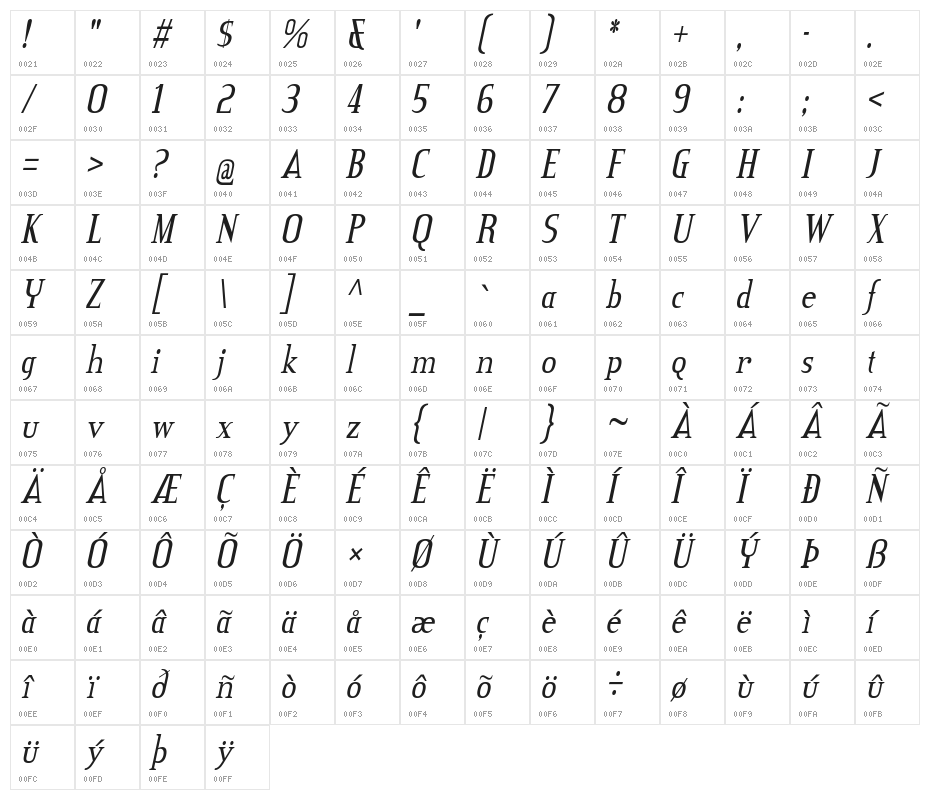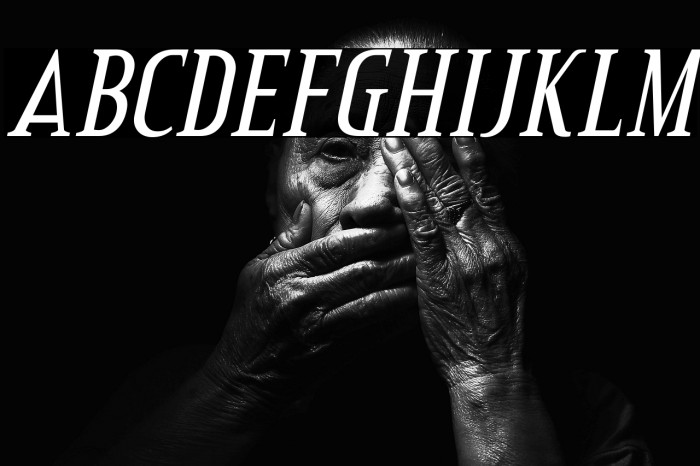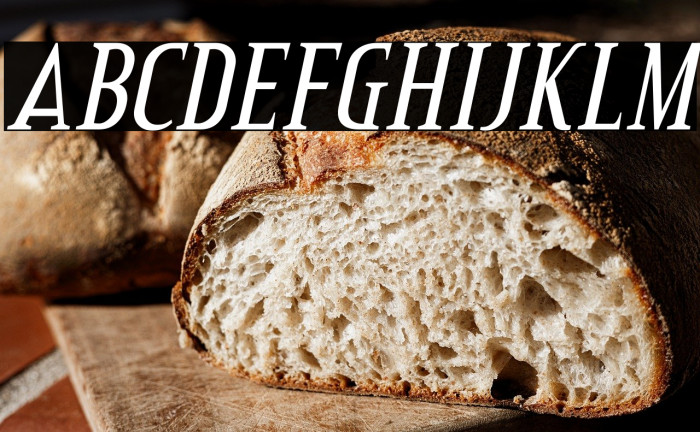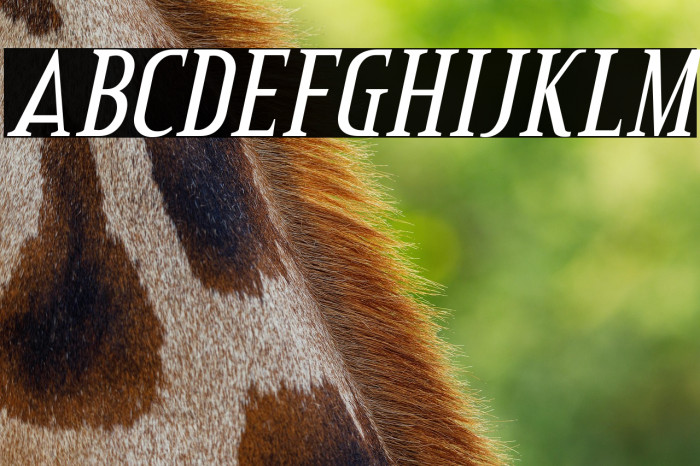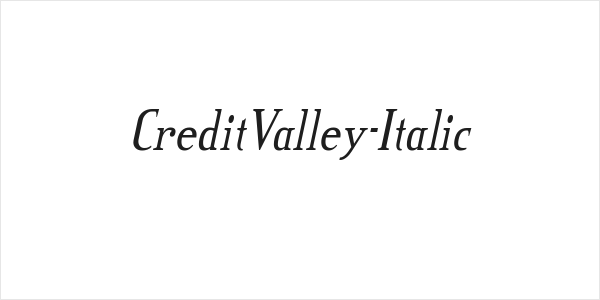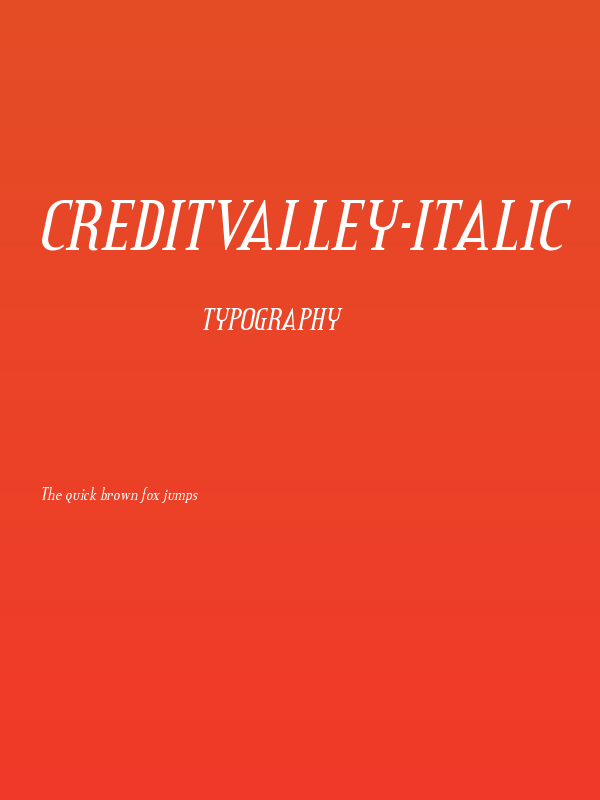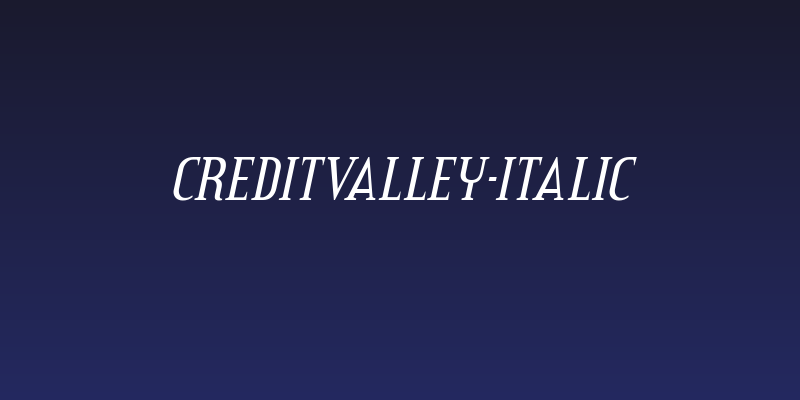
CreditValley-Italic Font
CreditValley-Italic Description
This font features a classic italic style with a slight slant, giving it an elegant and sophisticated appearance. The characters are well-defined with moderate contrast between thick and thin strokes, enhancing readability while maintaining a stylish flair. The serifs are subtle yet distinct, adding a touch of tradition to the overall design. The spacing between characters is normal, ensuring clarity and legibility across various sizes. This font is versatile, suitable for both formal and creative applications, making it an excellent choice for projects that require a touch of elegance.